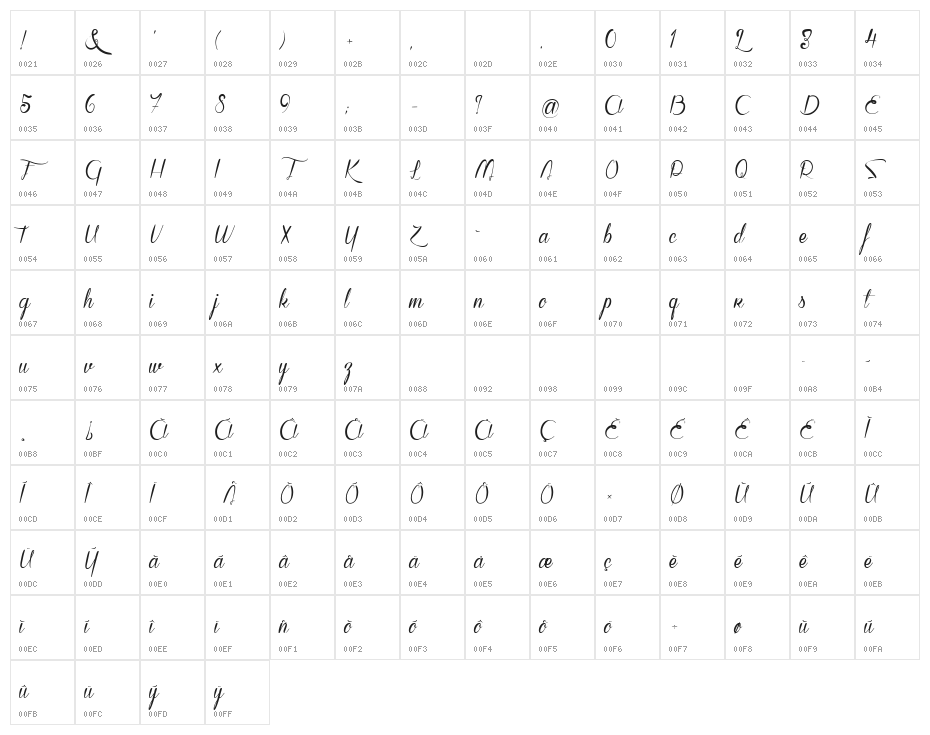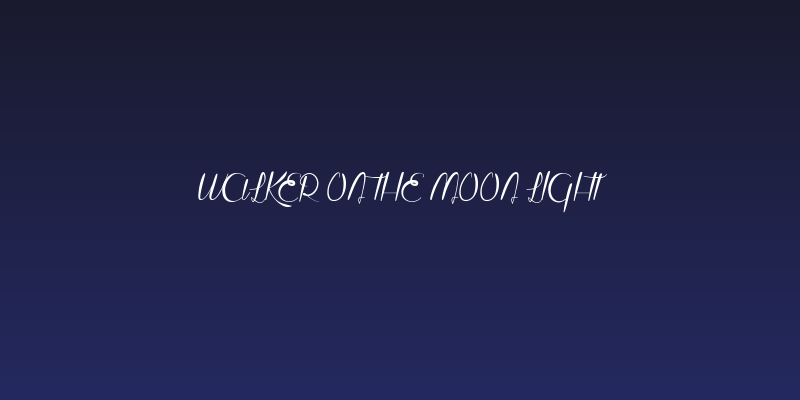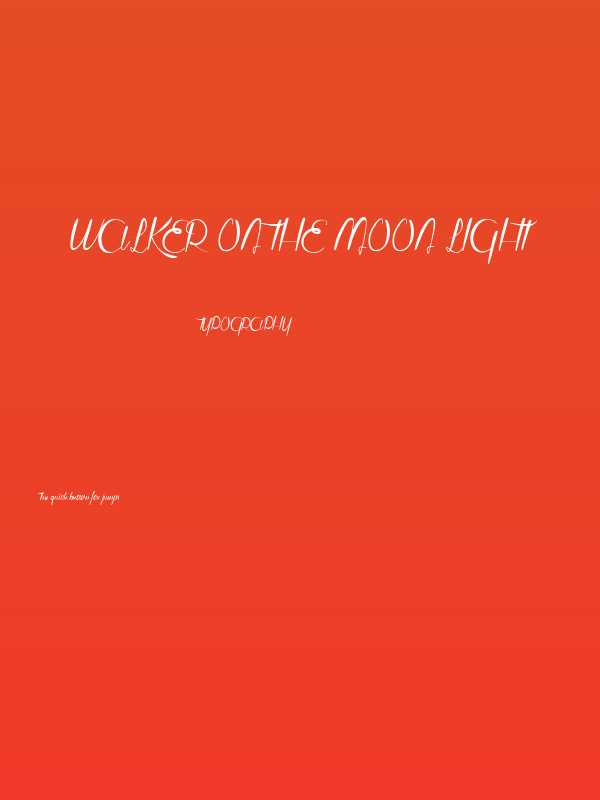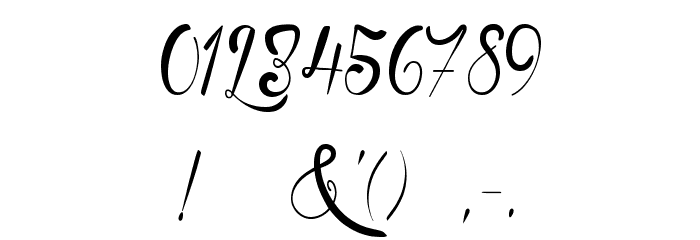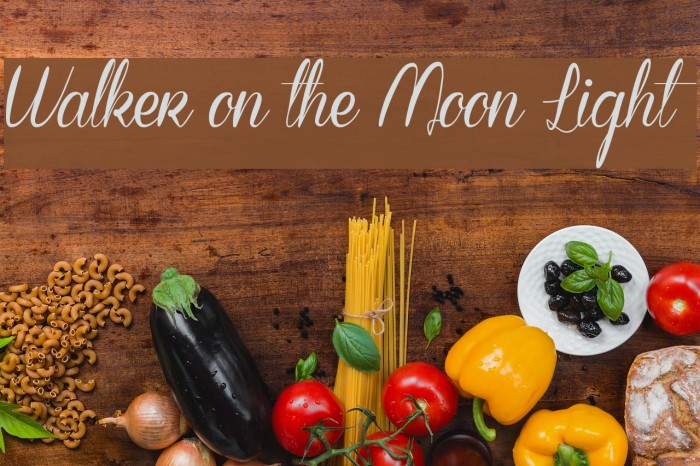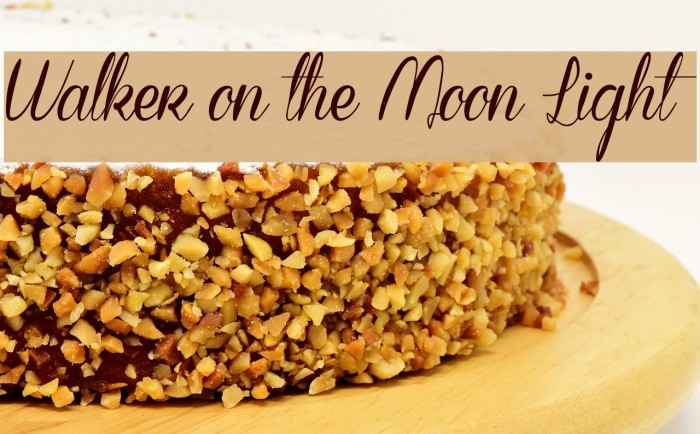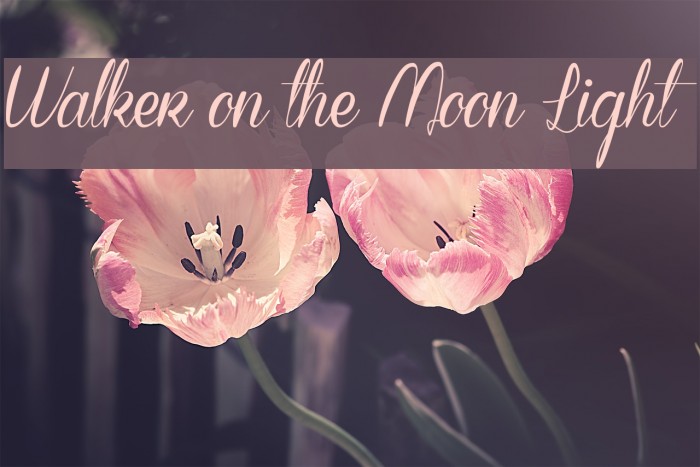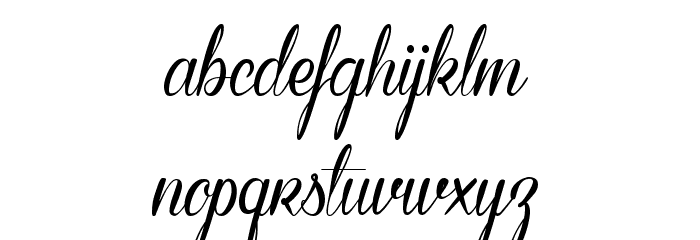
Walker on the Moon Light Font
Walker on the Moon Light Description
This elegant script font features a flowing, cursive style with a modern twist. The characters are gracefully connected, creating a sense of movement and fluidity. The uppercase letters are tall and slightly narrow, with distinctive loops and swirls that add a touch of sophistication. The lowercase letters maintain a consistent style, with smooth curves and delicate strokes. The numerals are uniquely styled to match the overall aesthetic, with a playful yet refined appearance. Special characters are thoughtfully designed, complementing the font's elegant nature. This font exudes a sense of elegance and charm, making it suitable for a variety of creative projects.